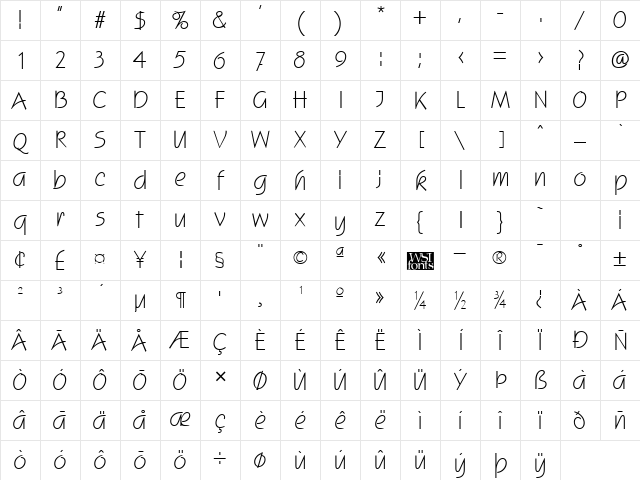
Scogin normal
Scogin Family
Design Context for Scogin
Scogin is a composed and adaptable typeface that performs quietly and consistently across a wide range of design contexts.